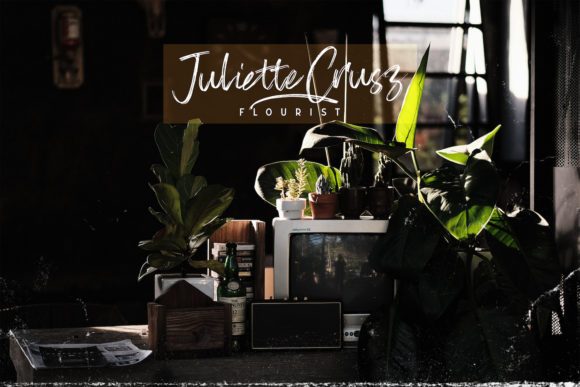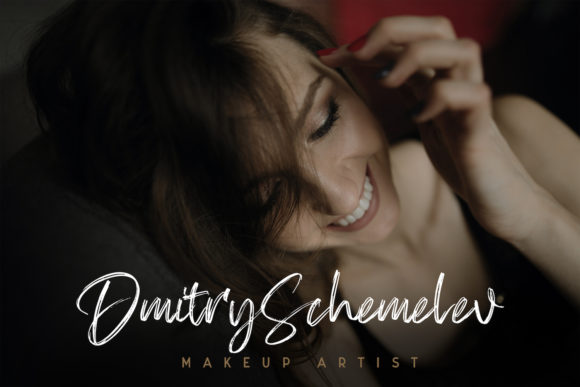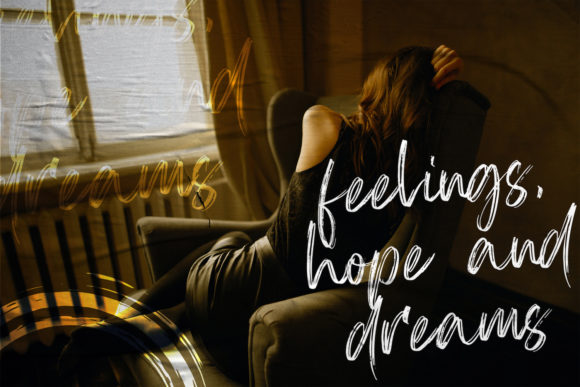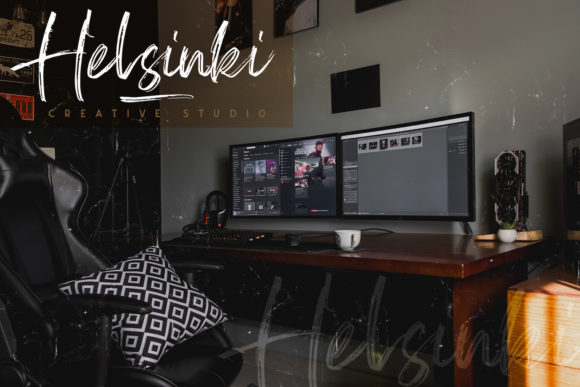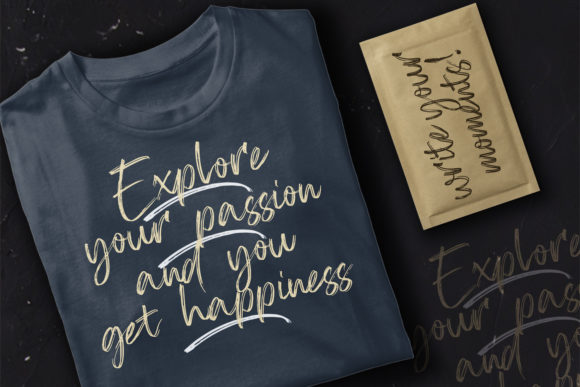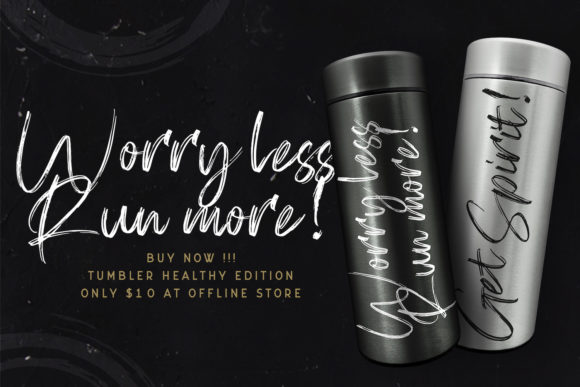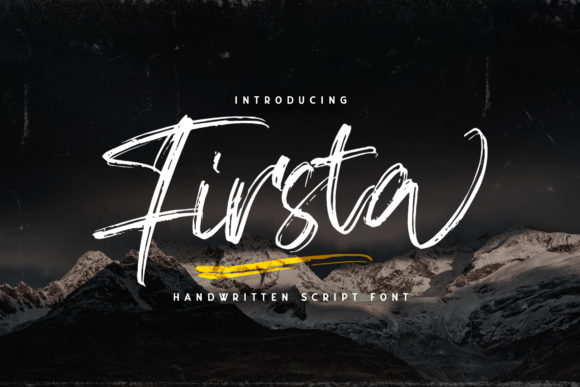
Introducing Firsta Font: The Sweet and Flowing Handwritten Font for Creative Projects
Are you a designer or crafter looking for a unique and elegant font to elevate your projects? Look no further than Firsta Font, a sweet and flowing handwritten font designed with the help of a brush pen. With its incredibly elegant style, Firsta Font is perfect for adding a touch of sophistication and whimsy to any creative project.
The Story Behind Firsta Font
Firsta Font was created with the goal of capturing the fluid and organic feel of handwritten writing. Using a brush pen, the designer carefully crafted each letter and character to create a font that is both beautiful and functional. The result is a font that is not only visually stunning but also highly legible and versatile.
Key Features of Firsta Font
- Handwritten with a brush pen: Firsta Font has a unique, handmade feel that sets it apart from other fonts.
- Sweet and flowing style: The font’s elegant and cursive style makes it perfect for projects that require a touch of sophistication.
- Unique and elegant: Firsta Font’s distinctive style ensures that your projects will stand out from the crowd.
- Highly legible: Despite its elegant style, Firsta Font is highly legible, making it suitable for use in a variety of projects.
- Versatile: Firsta Font can be used in a range of creative projects, from branding and advertising to packaging and stationery.
Uses for Firsta Font
Firsta Font is a versatile font that can be used in a variety of creative projects, including:
- Branding and advertising: Use Firsta Font to create eye-catching logos, advertisements, and marketing materials.
- Packaging design: Add a touch of elegance to your product packaging with Firsta Font.
- Stationery and invitations: Use Firsta Font to create beautiful and unique stationery, invitations, and greeting cards.
- Web design: Firsta Font can be used to create stunning website headers, titles, and other design elements.
Tips for Using Firsta Font
To get the most out of Firsta Font, here are a few tips to keep in mind:
- Use it sparingly: Firsta Font is a statement font, so use it sparingly to add emphasis and create visual interest.
- Experiment with colors: Firsta Font looks great in a variety of colors, so don’t be afraid to experiment and find the perfect hue for your project.
- Pair it with other fonts: Firsta Font pairs well with a range of other fonts, so try combining it with other fonts to create a unique and interesting effect.
Firsta Font is a beautiful and elegant handwritten font that is perfect for designers and crafters looking to add a touch of sophistication and whimsy to their projects. With its unique and flowing style, Firsta Font is sure to elevate your creative projects to the highest levels. So why wait? Download Firsta Font today and start creating stunning designs that will leave a lasting impression!